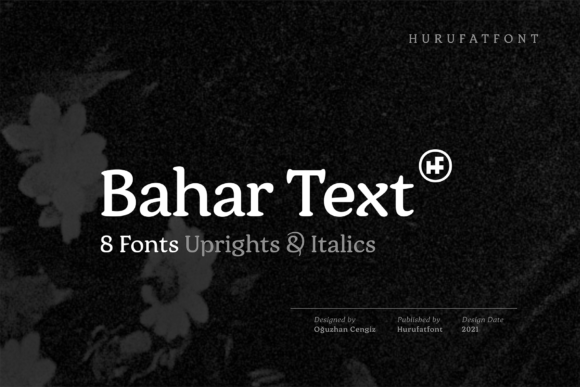
Discover the Perfect Blend of Trendiness and Elegance: Bahar Font You know that moment when you’re brainstorming ideas for your next creative project, and suddenly, the perfect font pops into your head? It’s like a spark of inspiration that sets your imagination ablaze. For designers and crafters alike, finding the right font can make all…